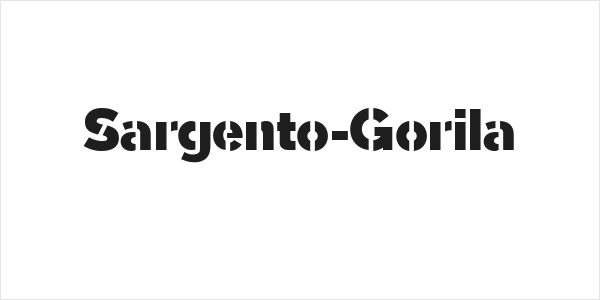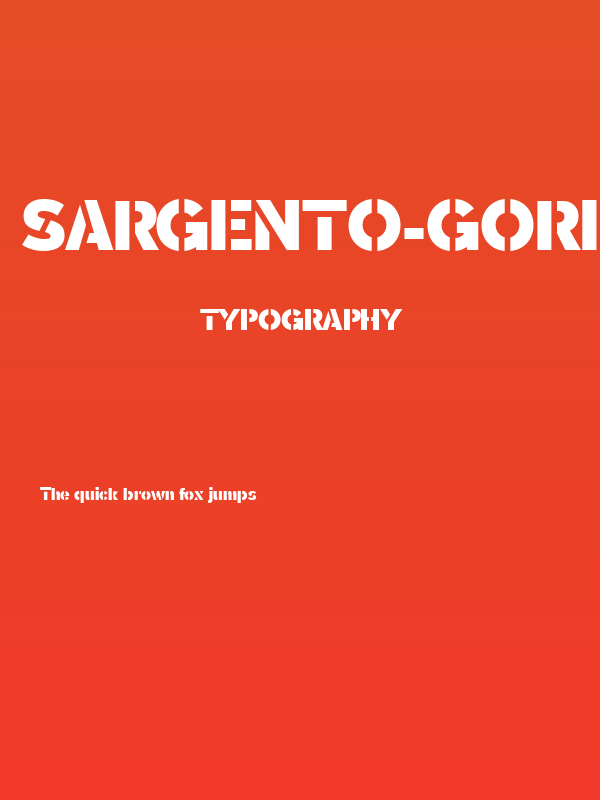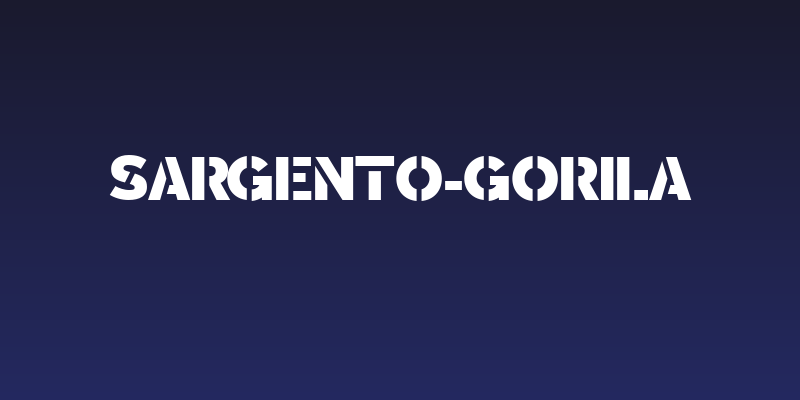
Sargento-Gorila Font
Sargento-Gorila Description
This font features a bold, geometric design with strong, angular cuts and a stencil-like appearance. The uppercase letters are particularly striking, with a uniform thickness and sharp edges that create a sense of strength and stability. The lowercase letters maintain this boldness, with a slightly more rounded approach, providing a balance between rigidity and fluidity. The numbers and special characters follow the same design principles, ensuring consistency throughout. This font's unique style makes it ideal for attention-grabbing headlines and impactful logos.
| Proposed Projects | Ideal for military-themed designs, posters, branding, and logos that require a strong, authoritative presence. |